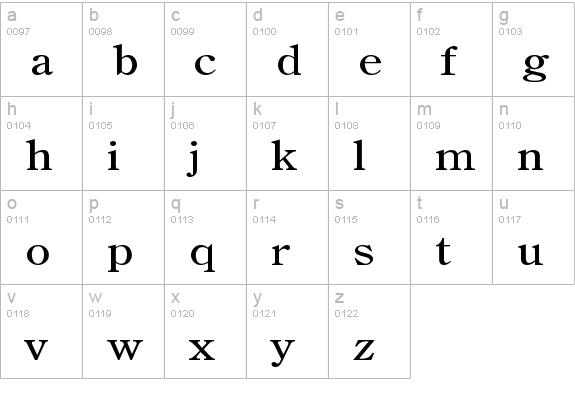
Cento Wide Normal Font Details
Cento Wide Normal is the standard, neutral, extended-width variant in the Cento typeface family \xE2\x80\x94 well suited to general body text, paragraphs, and standard typographic work.
Cento Wide Normal is a modern and versatile font that exudes elegance and sophistication. With its wide letterforms and clean lines, this font is perfect for adding a touch of style to any design project. Whether you're creating a sleek business card, a stunning poster, or a professional website, Cento Wide Normal is sure to make a bold statement. What sets Cento Wide Normal apart is not just its striking appearance, but also the fact that it is available for free download at FontsMarket.com. This means that you can easily access this high-quality font without breaking the bank. Don't miss out on the opportunity to enhance your designs with Cento Wide Normal – download it today and take your projects to the next level.